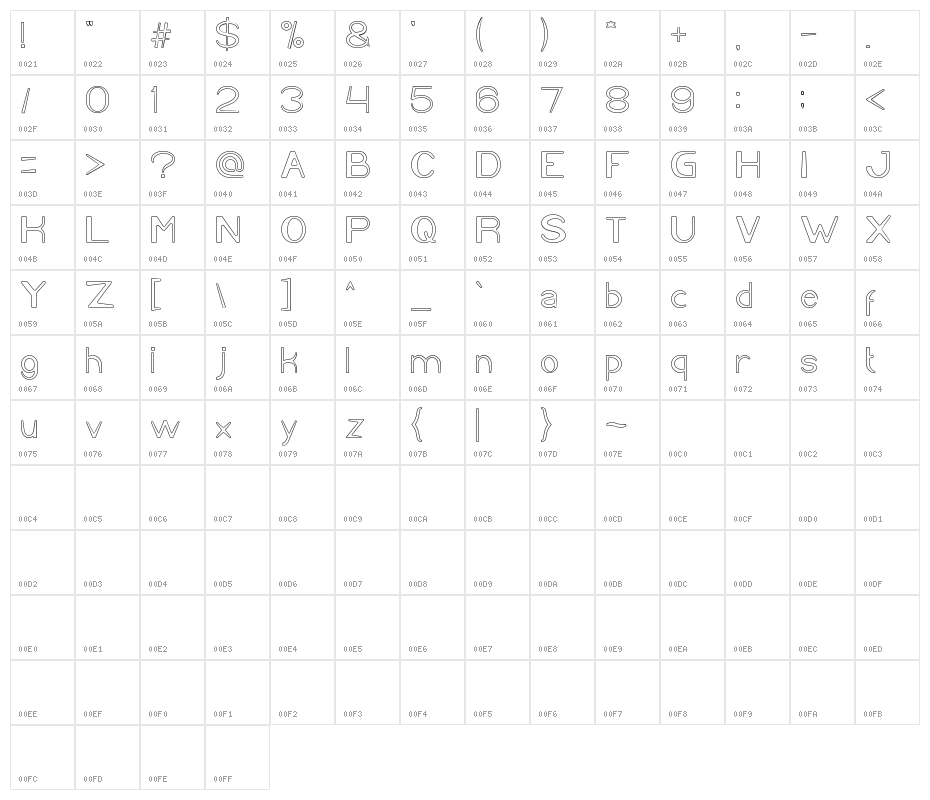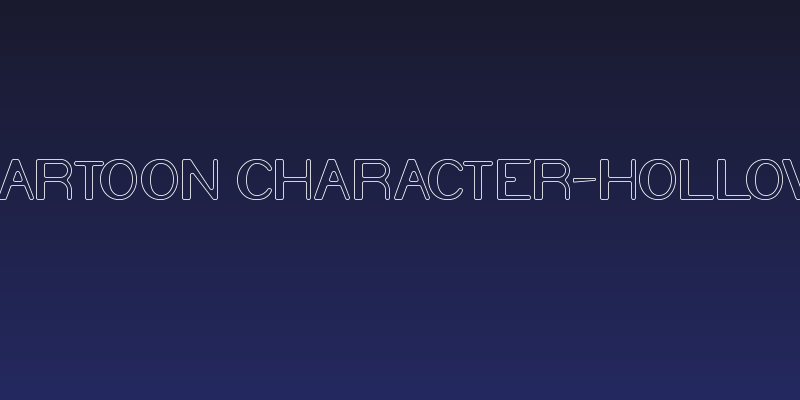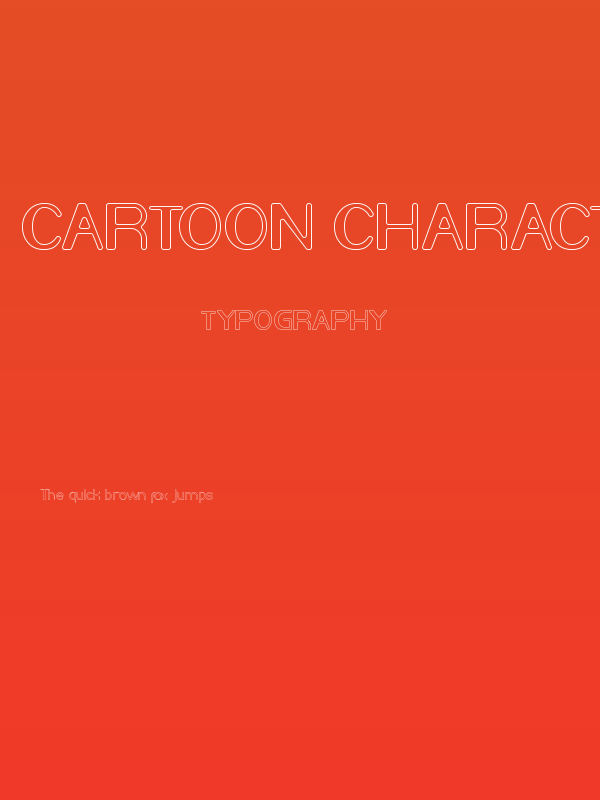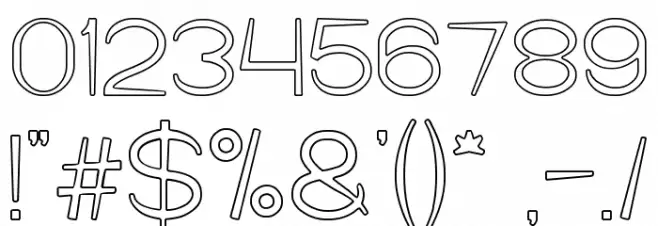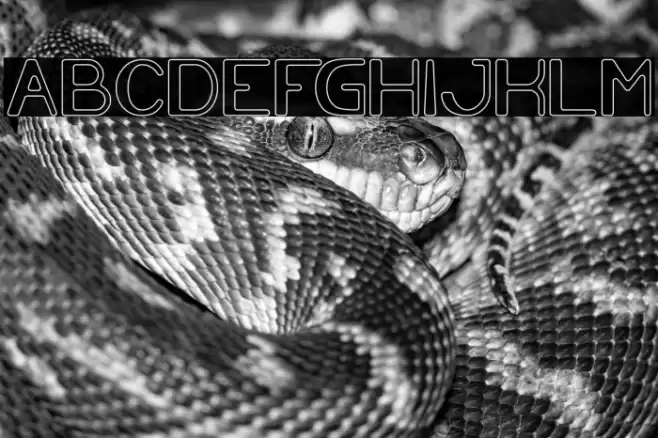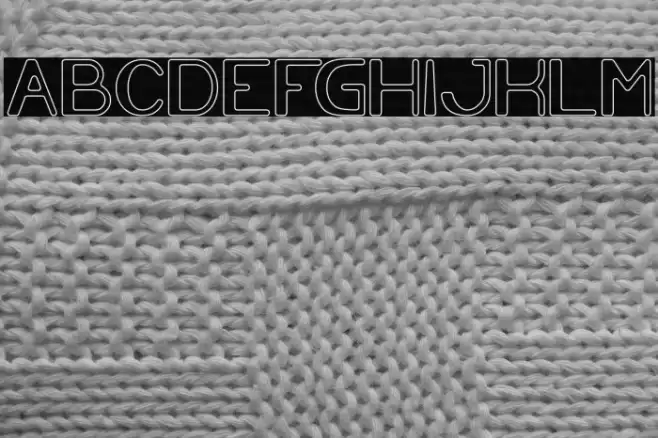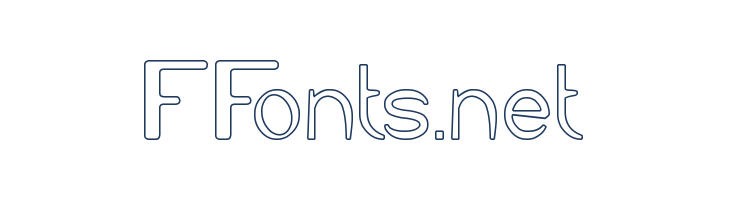
Cartoon Character-Hollow Font
This font features a playful and whimsical design with hollow, outline-style characters. Each letter is crafted with smooth, rounded edges, giving it a friendly and approachable appearance. The uppercase and lowercase letters maintain a consistent style, with a slight variation in height and width to differentiate them. Numbers and special characters follow the same hollow design, ensuring uniformity across all elements. The font's open structure makes it ideal for creative projects where a lighthearted and fun aesthetic is desired.
| Proposed Projects | Ideal for children's books, cartoon titles, playful branding, and creative posters. |